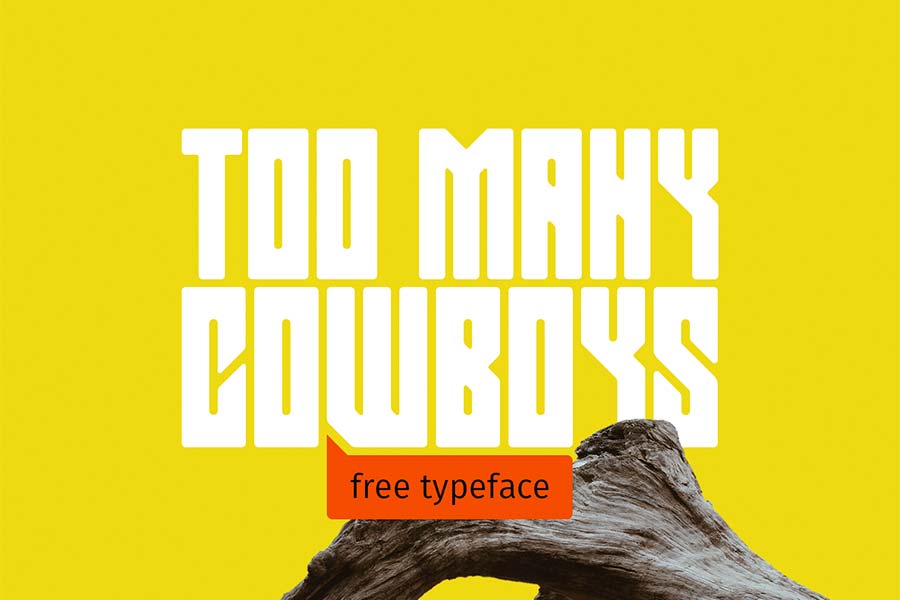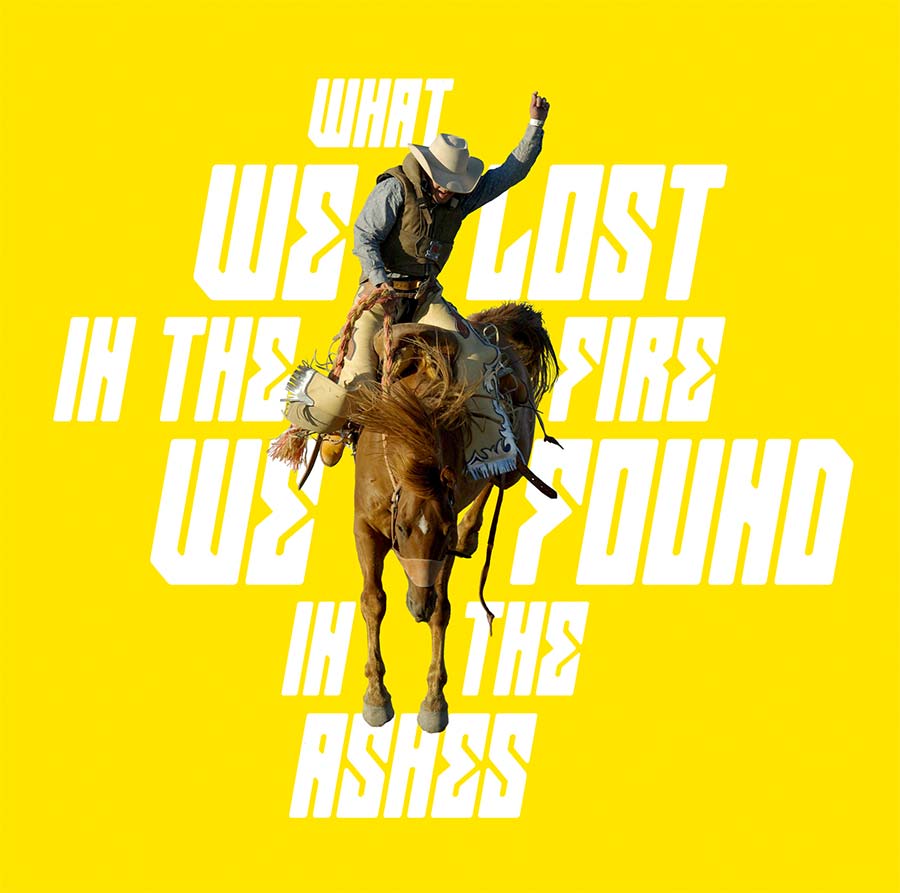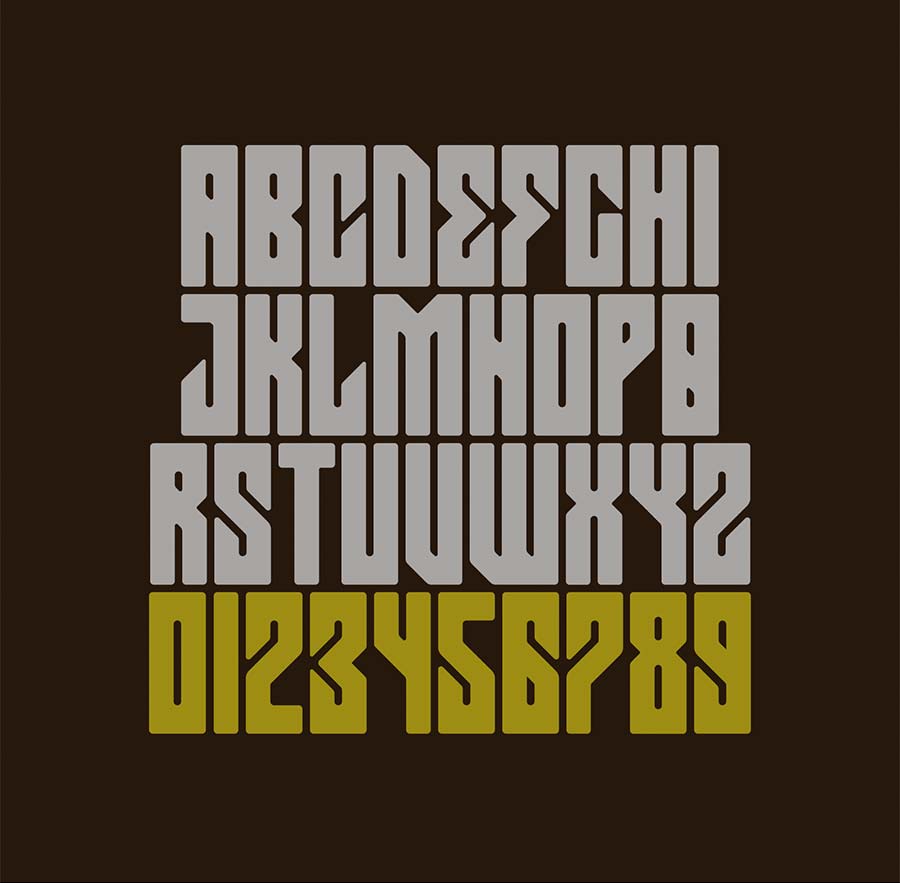
Too Many Cowboys is a free rounded squarish font that’s meant for display purposes. The letter designs are consists of condensed blocks with rounded corners, together with diagonal lines. It’s cool looking font but with some difficulty in readability. It comes with capital letters with some basic symbols.